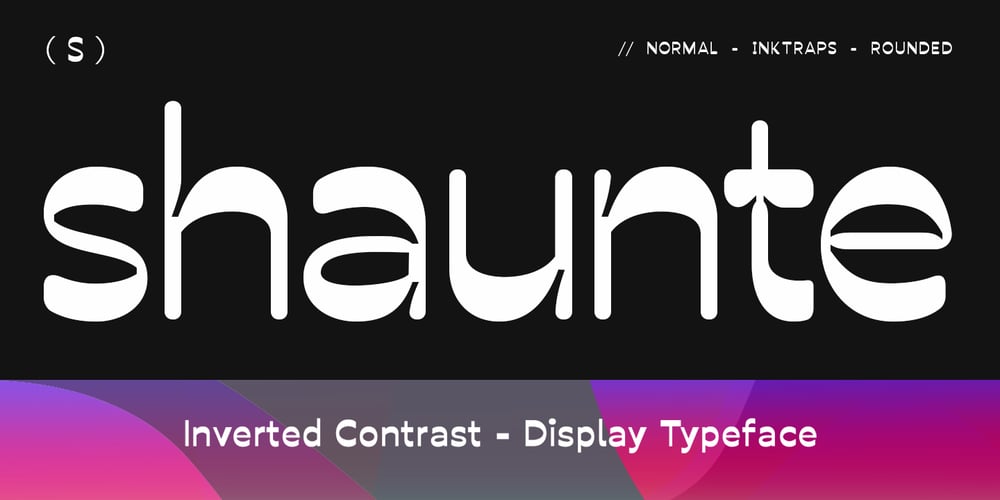
Shaunte
Shaunte font
Shaunte Font Family was designed by Muhammad Reza and published by Trophy Font. Shaunte contains 4 styles and family package options. Shaunte is eye-catching display bold typeface that comes in four styles: normal, inktraps, rounded, inktraps rounded. a display sans-serif with an inverted or reverse contrast. Its imperfections keep it casual while still providing legibility. Shaunte is a powerful option at large sizes for use on headings, posters, billboards, magazines, advertisements, from casual to hipster. etc.